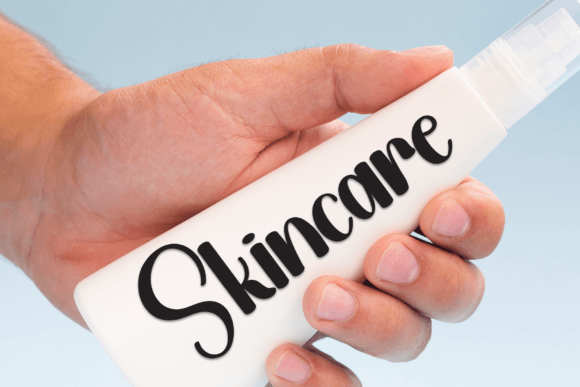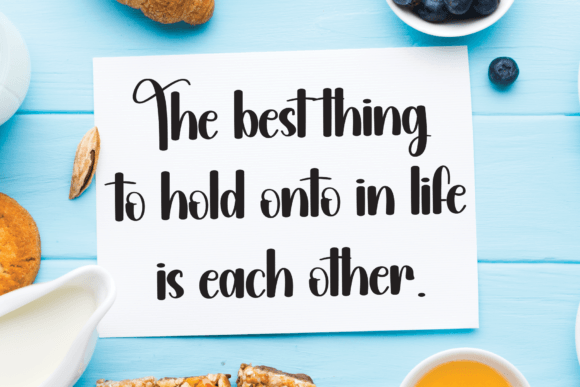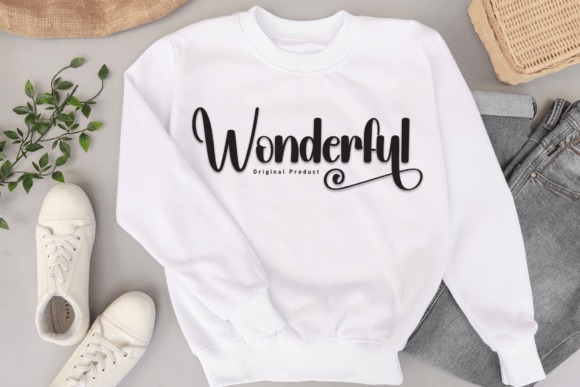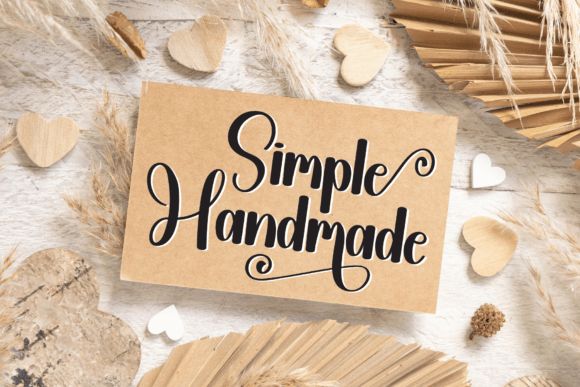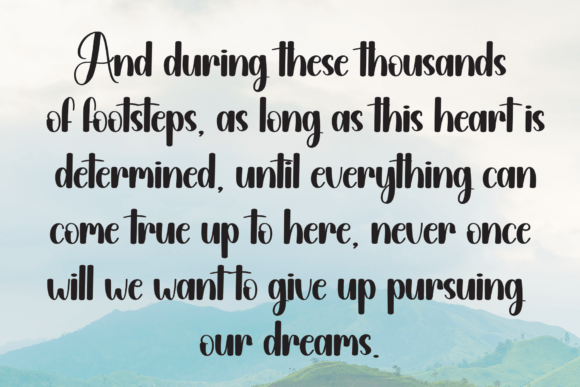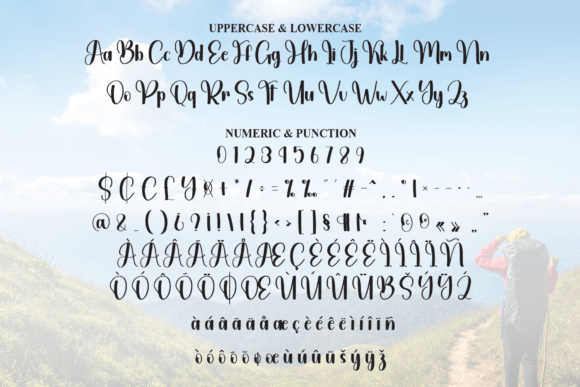
Unlocking Creative Potential with Augusta Font
Have you ever been in the middle of a design project, pouring your heart and soul into it, only to hit a roadblock when it comes to finding the perfect font? I certainly have. It was during one of those moments, working on a wedding invitation design, that I stumbled upon the Augusta Font. It was love at first sight! ✨ The elegant, creative, and highly versatile letters perfectly captured the essence of the occasion, elevating my design to a whole new level.
A Personal Review of Augusta Font
As a designer, I’m always on the lookout for fonts that can bring a unique touch to my projects. Here’s my honest review of Augusta Font:
- ✨ Exceptional versatility: Perfect for wall displays, wedding invitations, social media post logos, advertisements, product packaging, and more.
- 💡 Encoded PUA Character: No additional design software is needed to access the font’s features, making it incredibly convenient.
- ⚠️ Learning Curve: If you’re new to using OpenType fonts or glyphs, there might be a slight learning curve to unlock all the features.
- 🤔 Character Limit: Depending on your project, you might find that certain variations of letters or glyphs are limited, which could impact highly customized designs.
The Story Behind Augusta Font
Augusta Font was created with the designer in mind. Its development was inspired by the need for a versatile and creative font that could be used across various platforms and projects. The creators aimed to craft a font that was not only aesthetically pleasing but also highly functional, catering to the demands of both professional designers and creative hobbyists.